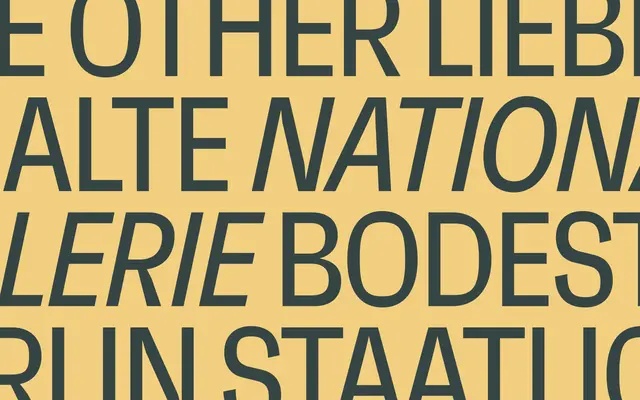
Neue Faktum Condensed
Neue Faktum Condensed specimen from Studio Rene Bieder
A condensed grotesque spanning eight weights with matching italics, offering a thorough set of OpenType alternates including single- and double-storey options for a, g and y.
Neue Faktum Condensed covers eight weights from Thin to ExtraBold, each with a matching italic, giving 16 styles in a narrow cut suited to headlines, signage and space-constrained layouts. OpenType features include tabular and proportional figures, fractions, discretionary ligatures, case-sensitive forms and a broad range of character alternates for a, g, y, J, G, Q and arrows. The alternate glyph set provides meaningful typographic control for branding and editorial contexts.
A condensed grotesque sans-serif with alternates for single- and double-storey letterforms, placing it firmly in the grotesque tradition with contemporary refinements.